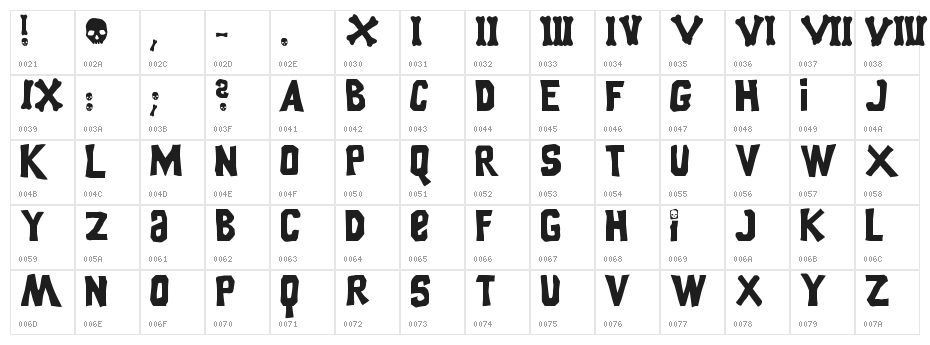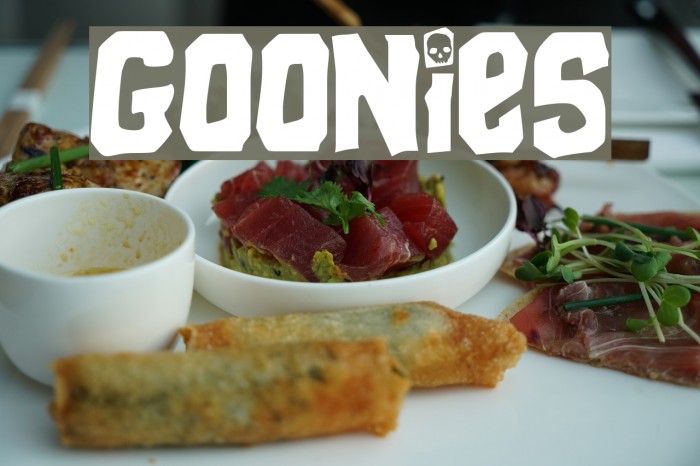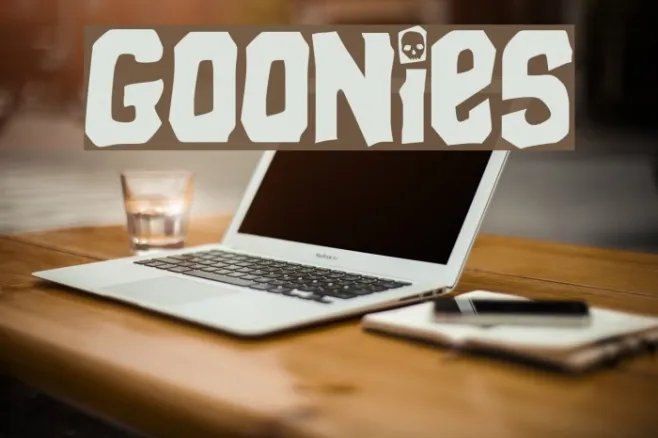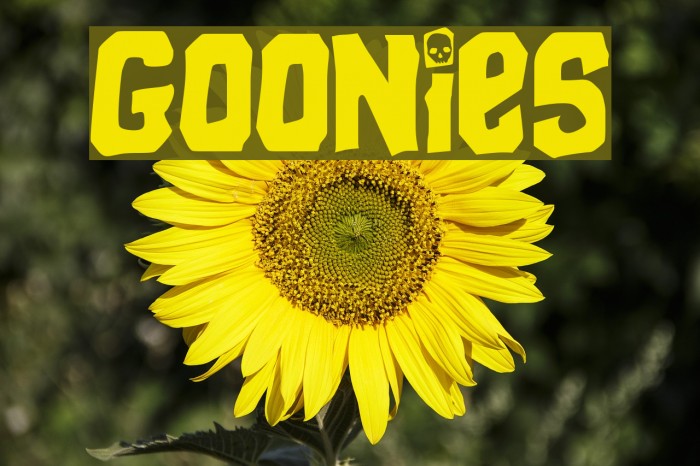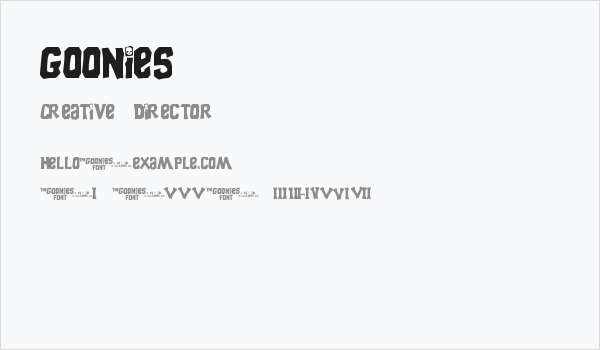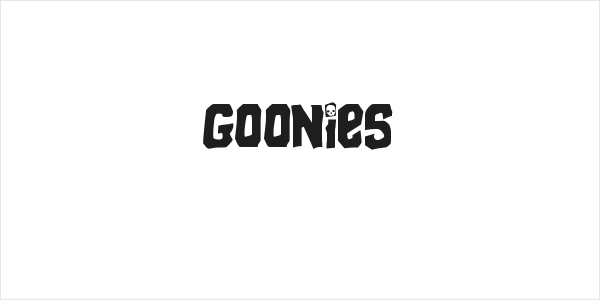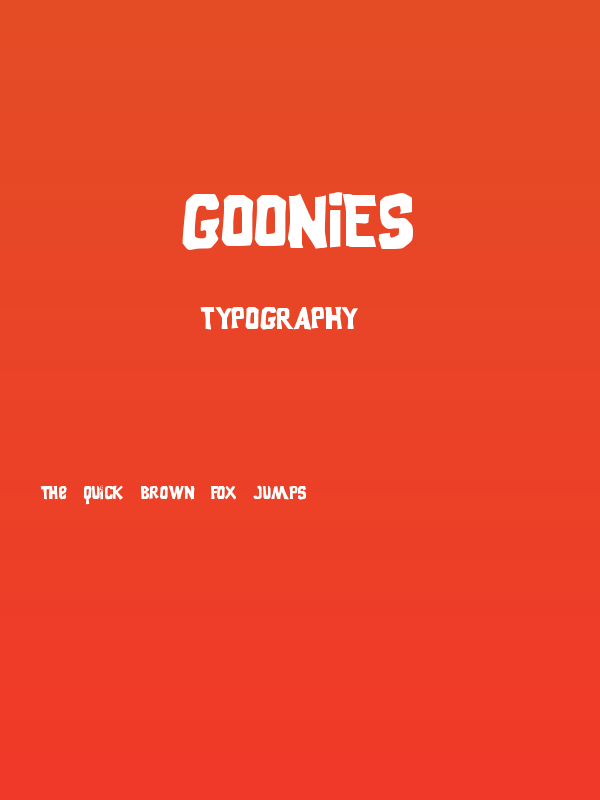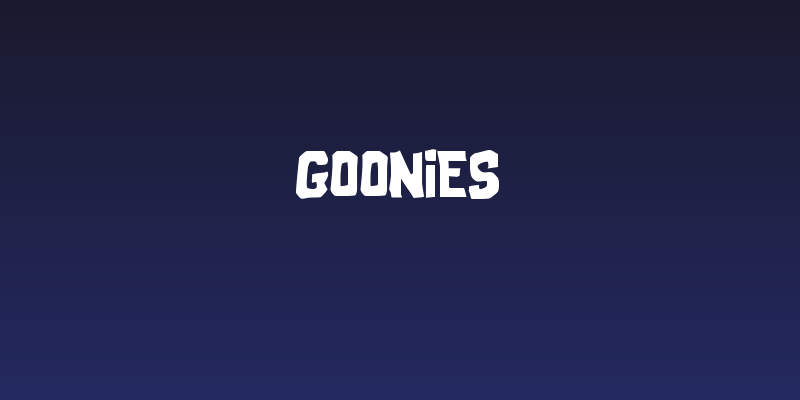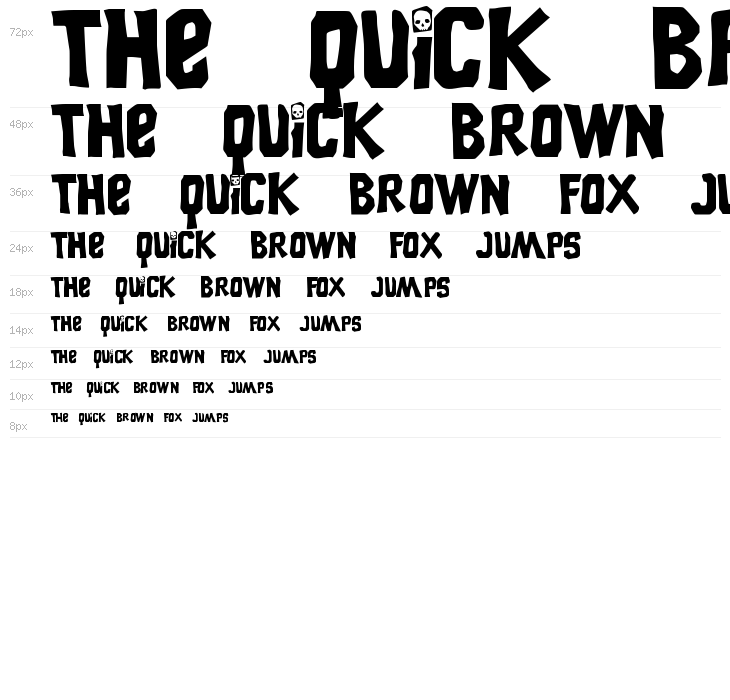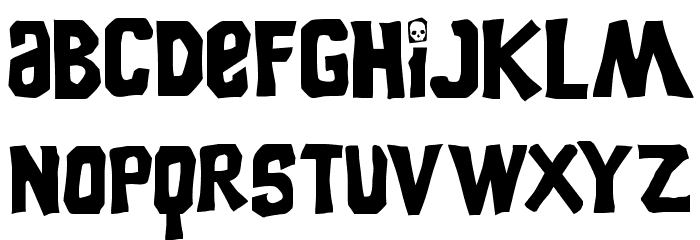
Goonies Font
Goonies Description
This font features a bold and playful design with a distinctively rugged and adventurous feel. The characters have uneven edges and a slightly irregular form, giving them a hand-drawn appearance. The uppercase letters are bold and impactful, while the lowercase letters maintain a consistent style. The numbers are stylized to match the overall theme, and the special characters add a quirky touch. This font evokes a sense of excitement and nostalgia, reminiscent of classic adventure tales.
| Overall Style | Vintage, Playful |
| Proposed Projects | Ideal for movie posters, adventure-themed events, children's book covers, and playful branding. |